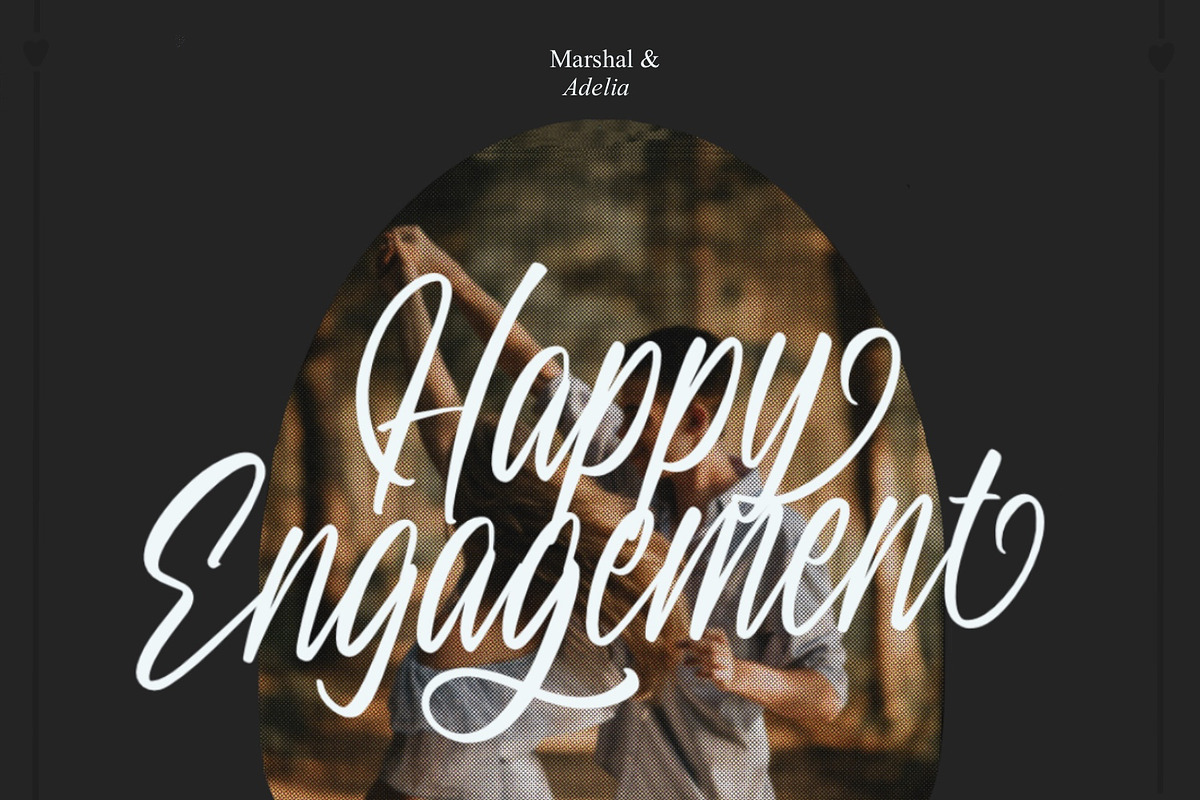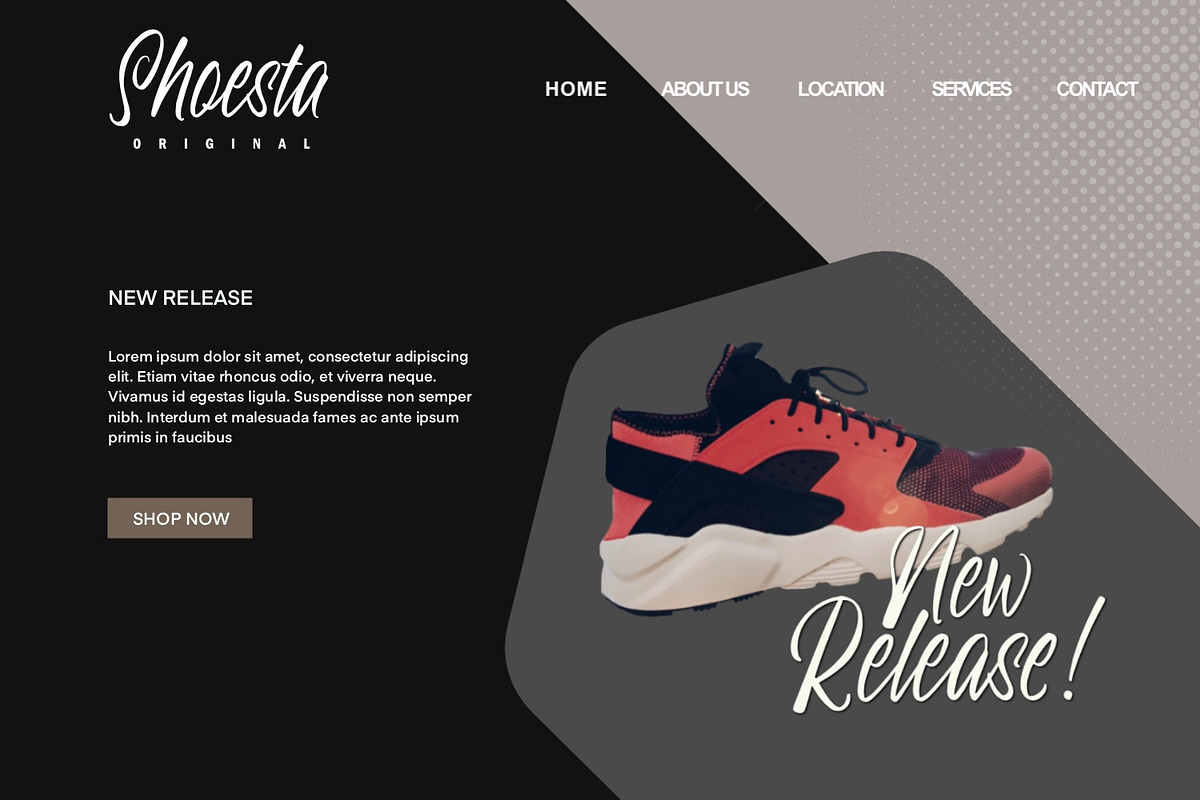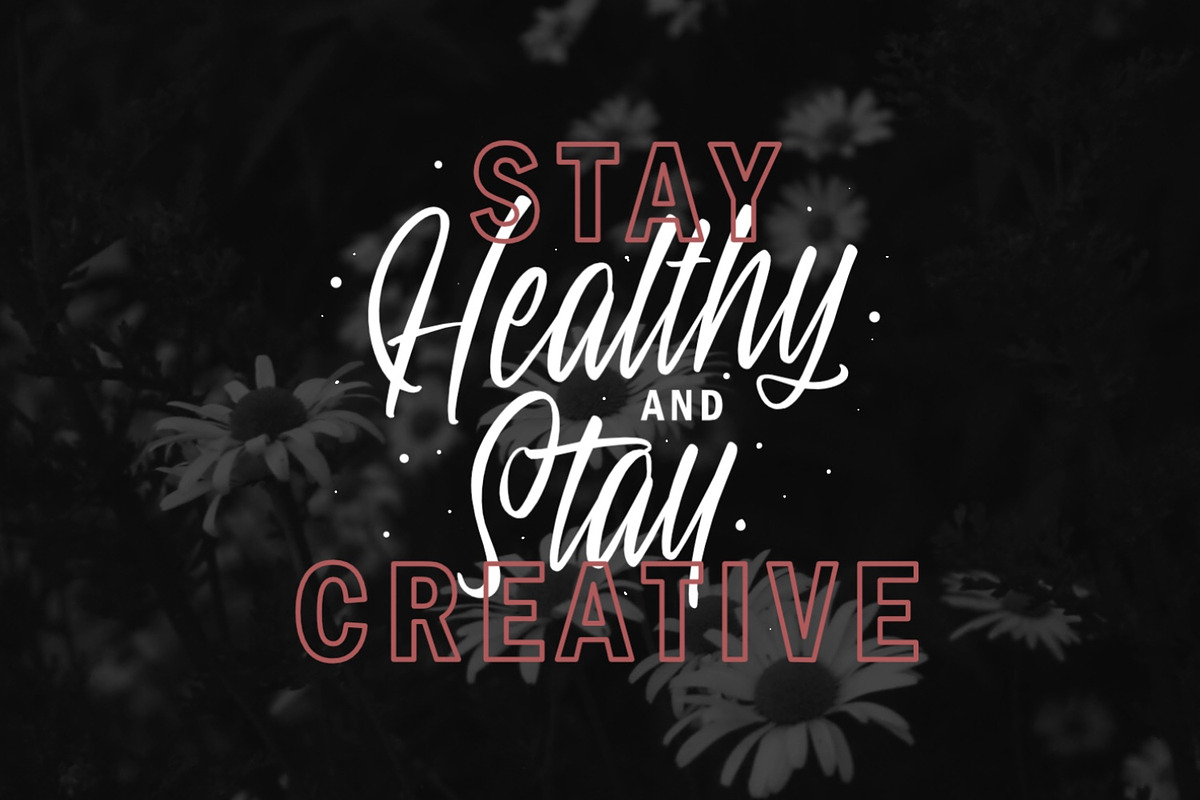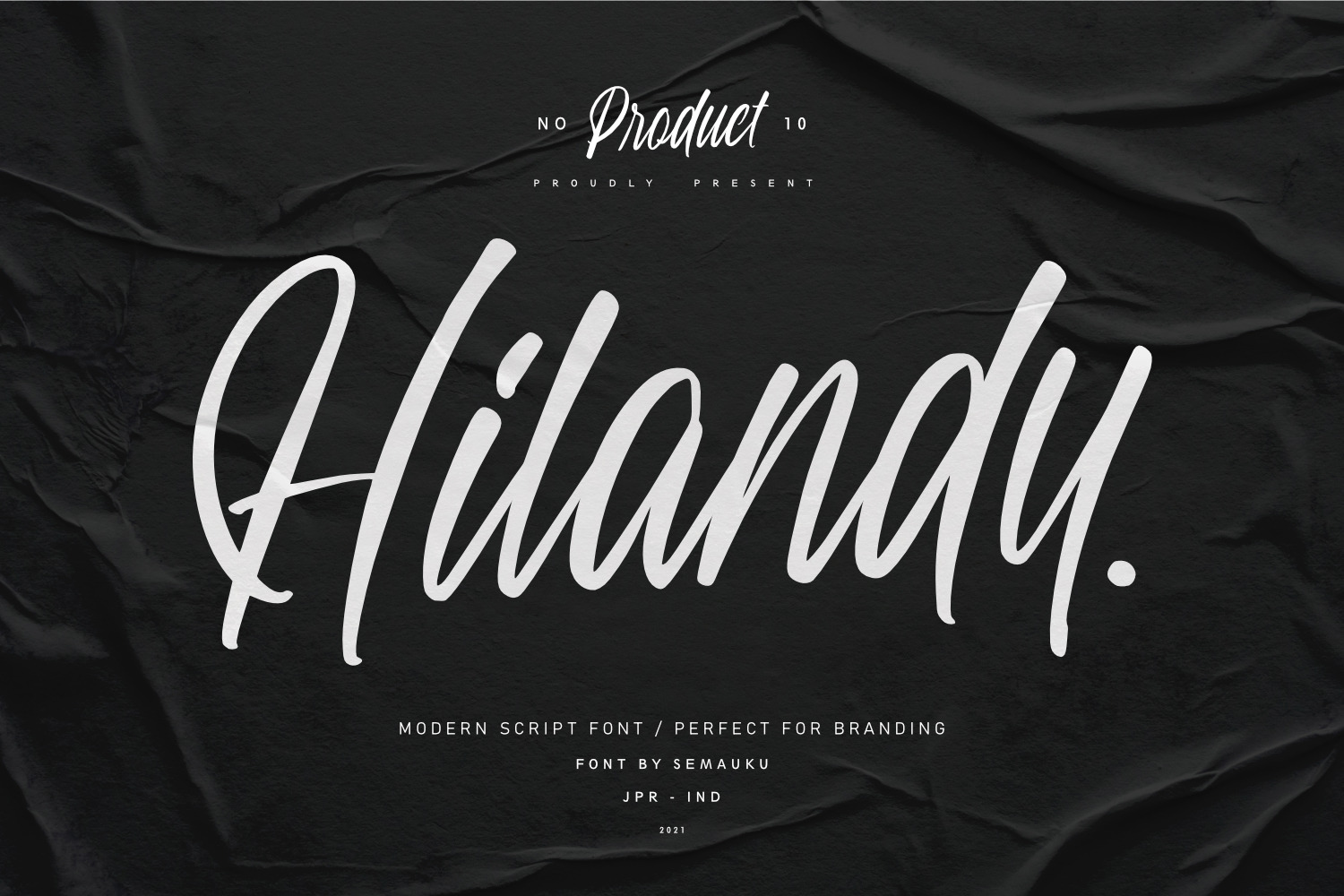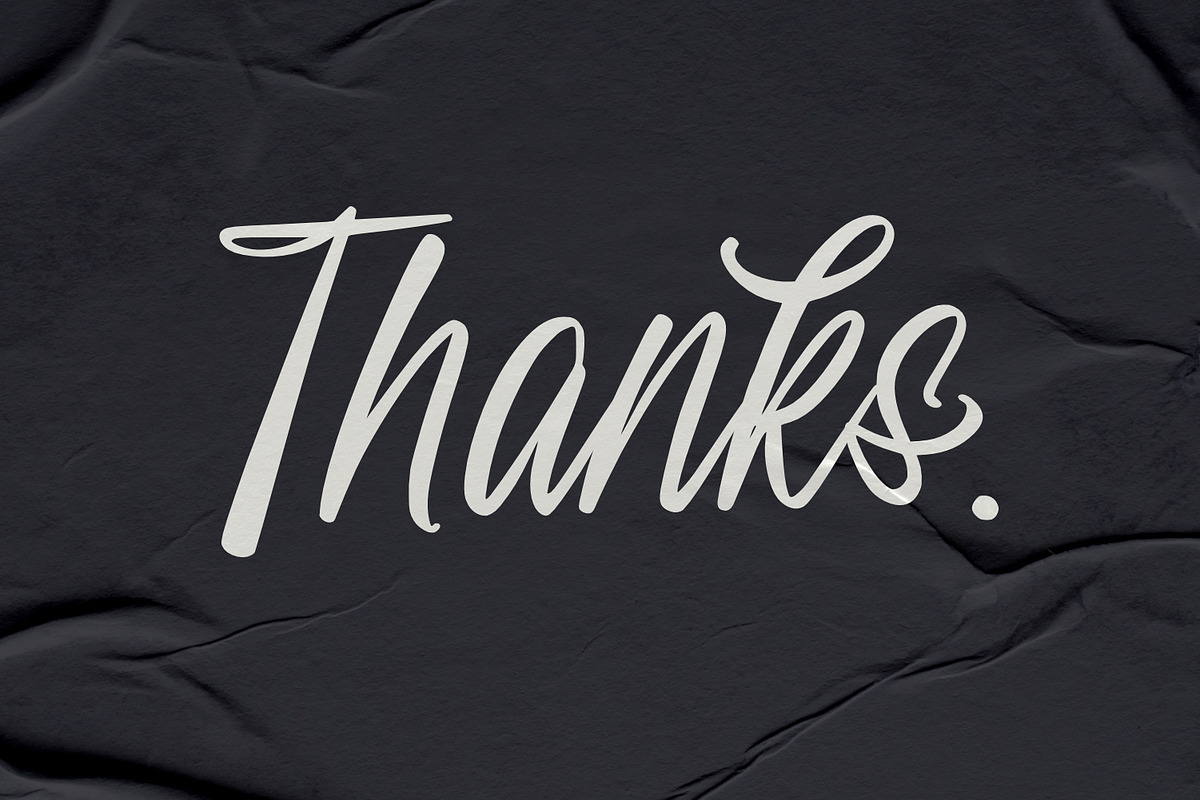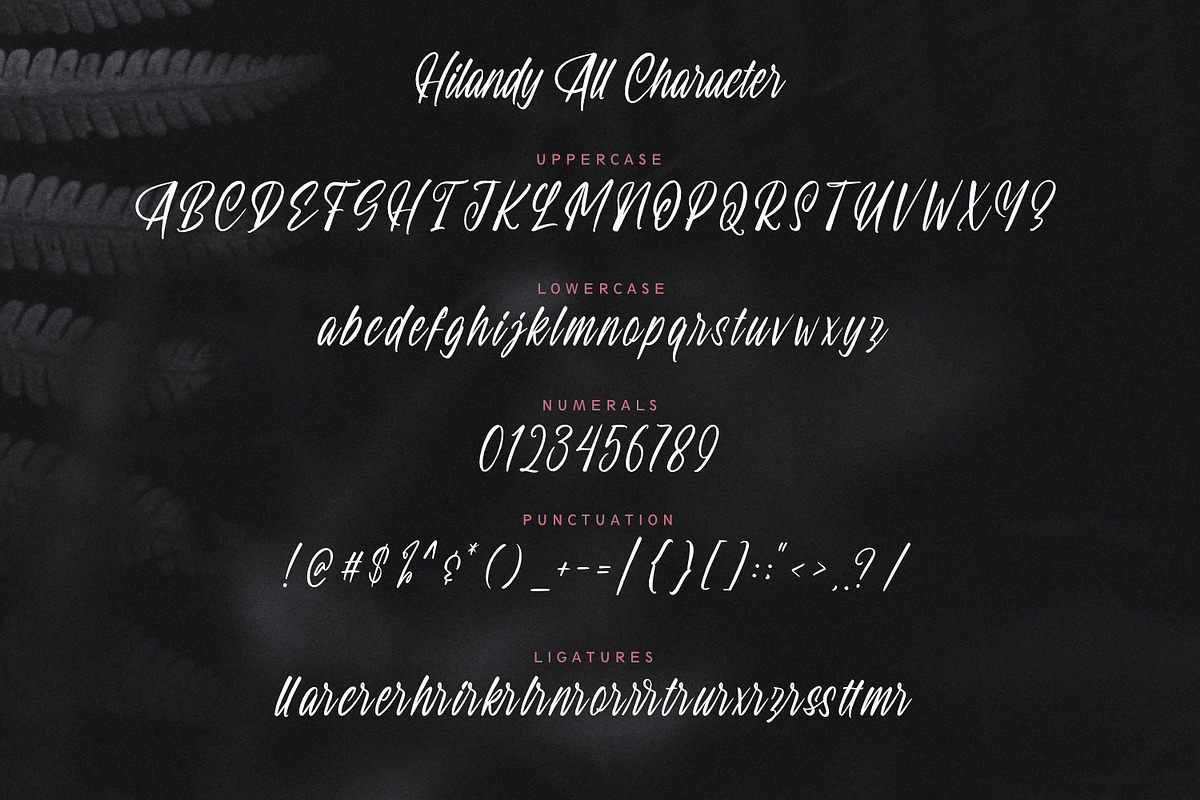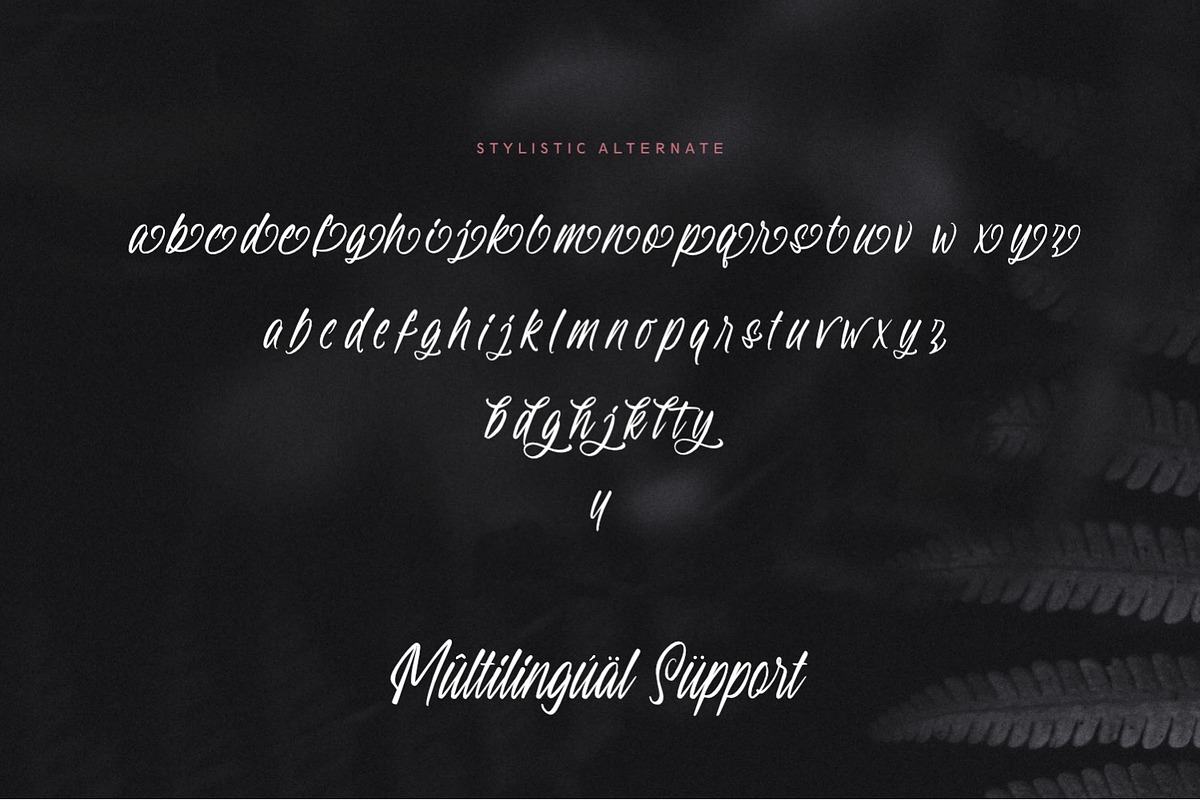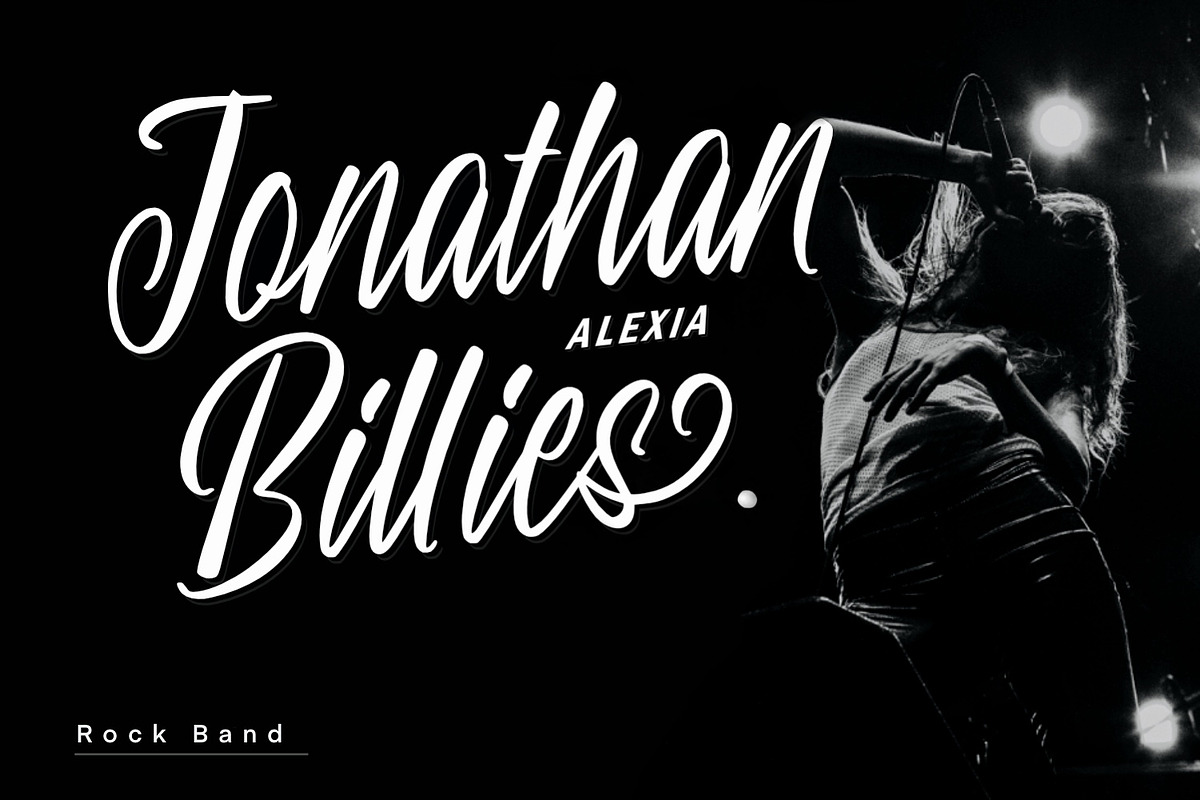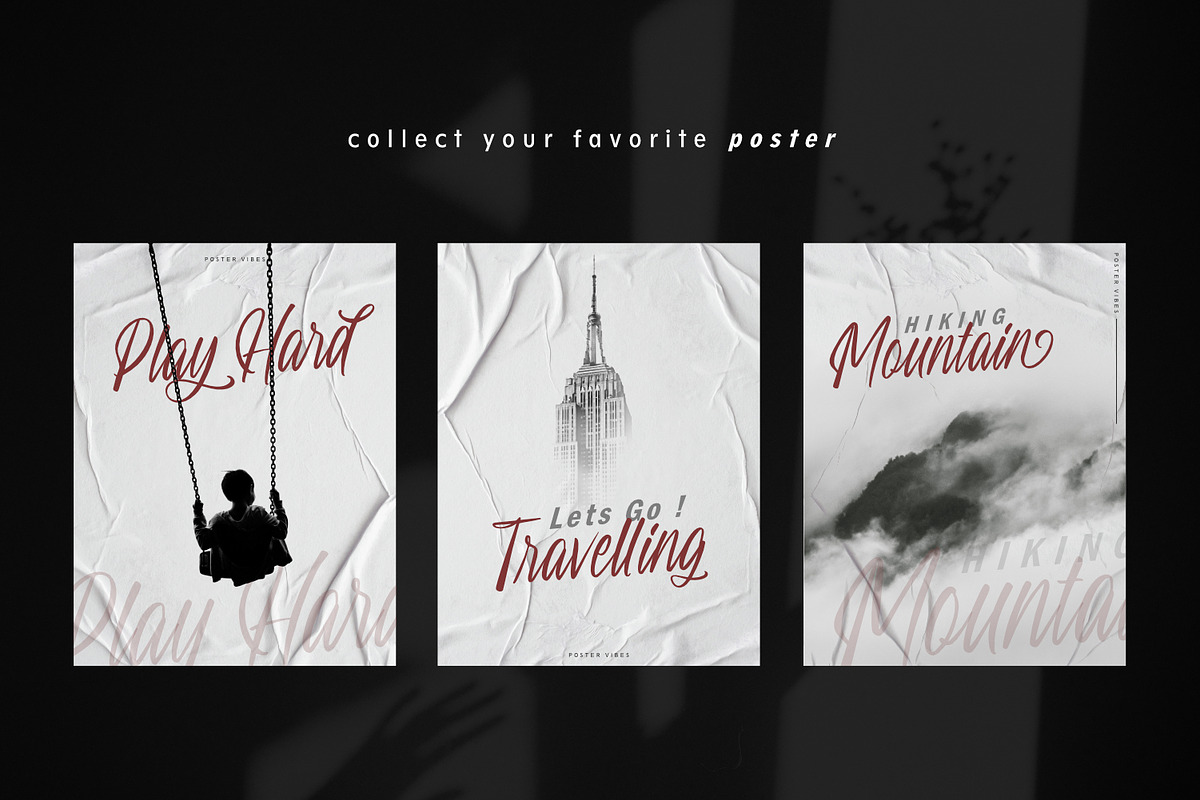
Hilandy Font
Hilandy Font is a hand-lettered Modern Script Font.This font is awesome for your creative project such as Quotes, Logotype, Branding, Packaging, Design, Social Media Post, Merchandise, Apparel, label, and much more. Hilandy Font comes with standard character, numeral, punctuation, alternates and SUPPORT standar Multilingual.
- Nuerals
- Multilingual Language
- Opentype Features